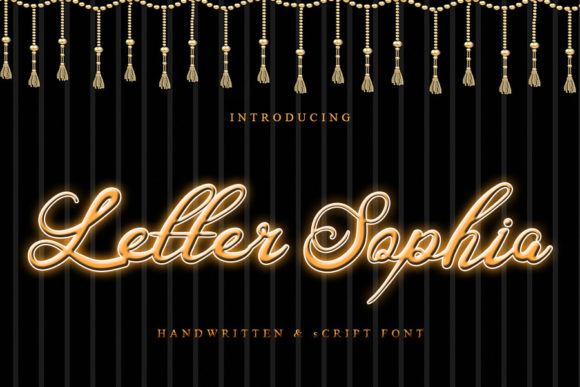
In the realm of digital artistry, where beauty and expression intertwine, allow us to introduce you to Letter Sophia Font, an enchanting handwritten script that will captivate your senses and transform your designs into masterpieces. Crafted with love by the talented artisans at Slenting Art, Letter Sophia is a font that whispers elegance, romance, and a touch of whimsy.
Picture this: A wedding invitation adorned with the flowing strokes of Letter Sophia, inviting guests to a celebration filled with love and joy. Or perhaps a greeting card, its message penned in this delicate script, conveying heartfelt sentiments with an unforgettable charm. Every letter dances across the page, carrying with it a story, a feeling, an emotion.
With Letter Sophia as your creative companion, you'll embark on a journey of artistic discovery, where your designs will blossom into works of art. Its dainty strokes and joyful spirit make it the perfect choice for any project seeking a romantic, personalized touch. Wedding invitations, cards, logos, branding, social media posts - Letter Sophia elevates the ordinary into the extraordinary, creating a visual spectacle that leaves a lasting impression.
Step into a world where creativity flourishes and let Letter Sophia guide your hand. Its versatility knows no bounds, allowing you to weave magic in both digital and print realms. Let your imagination soar as you explore endless possibilities, crafting designs that resonate with beauty, elegance, and an undeniable touch of romance.